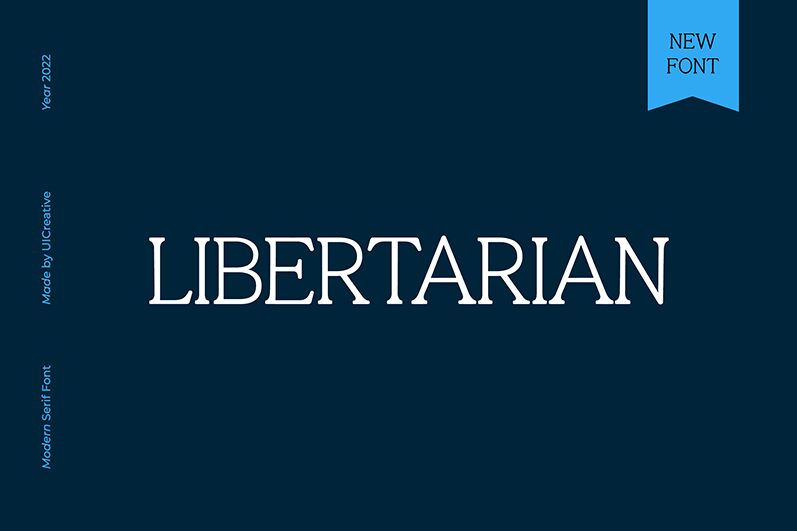
Libertarian
Libertarian, a captivating serif font crafted by UI Creative, exudes a timeless elegance and refined sophistication. Its graceful curves and precise strokes create a visually striking aesthetic, evoking a sense of traditional craftsmanship and literary sensibilities. The font's distinctive character invites readers to linger, drawing them into the narrative or message conveyed through its carefully balanced letterforms.
This versatile font lends itself seamlessly to a wide range of design applications, from editorial layouts and book covers to branding and marketing materials. Its strong, yet refined presence makes it an excellent choice for projects that require a touch of classic charm, whether it's a high-end publication, a premium product packaging, or a sleek corporate identity.